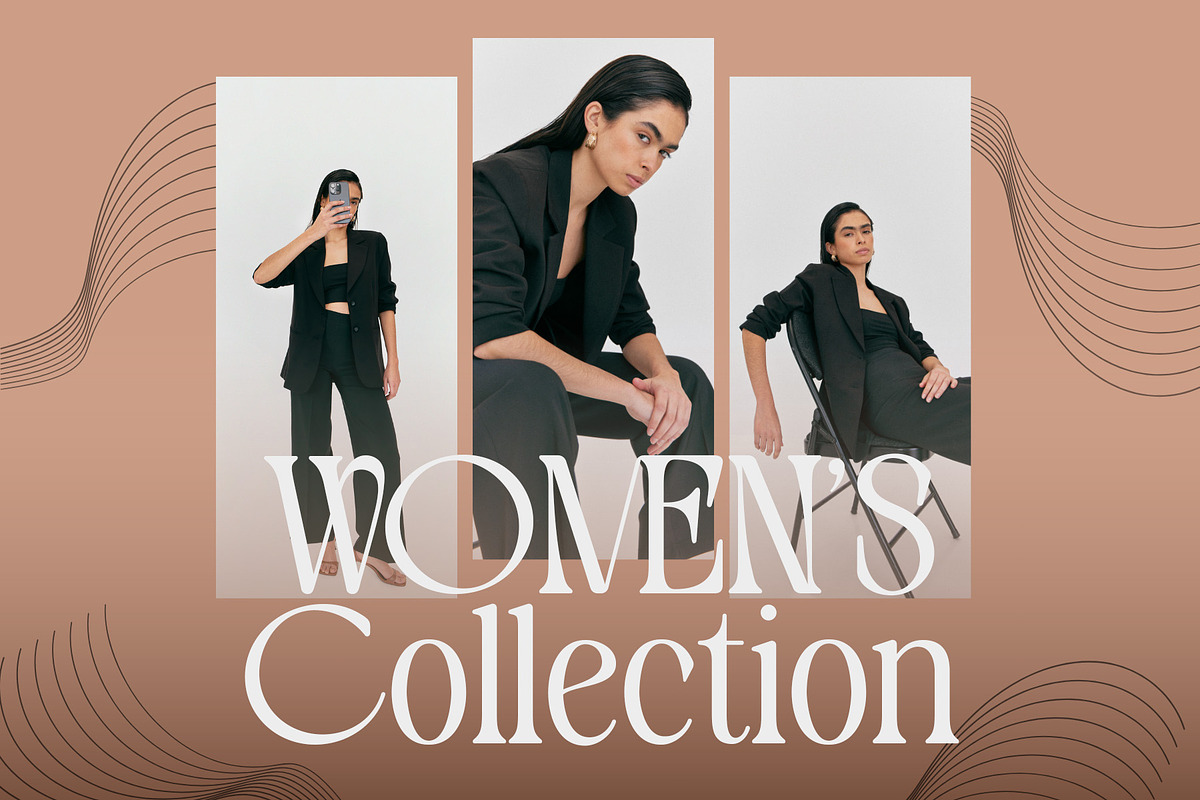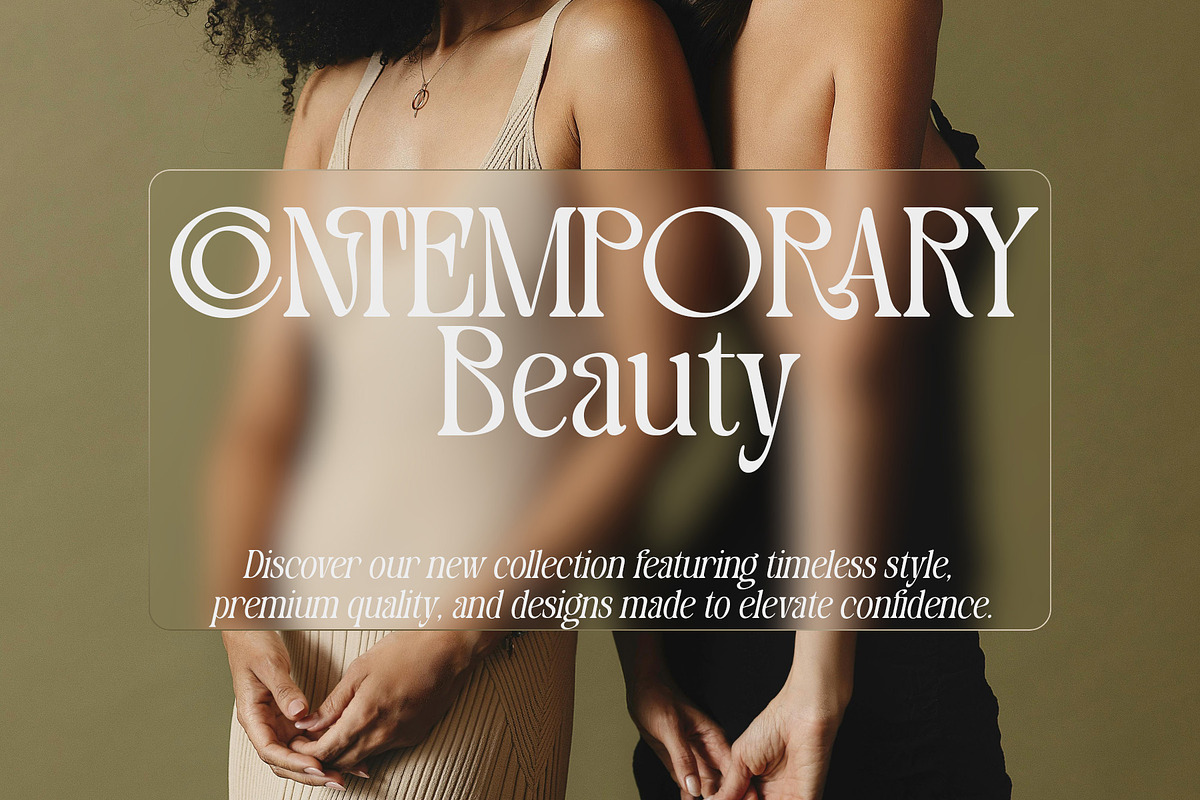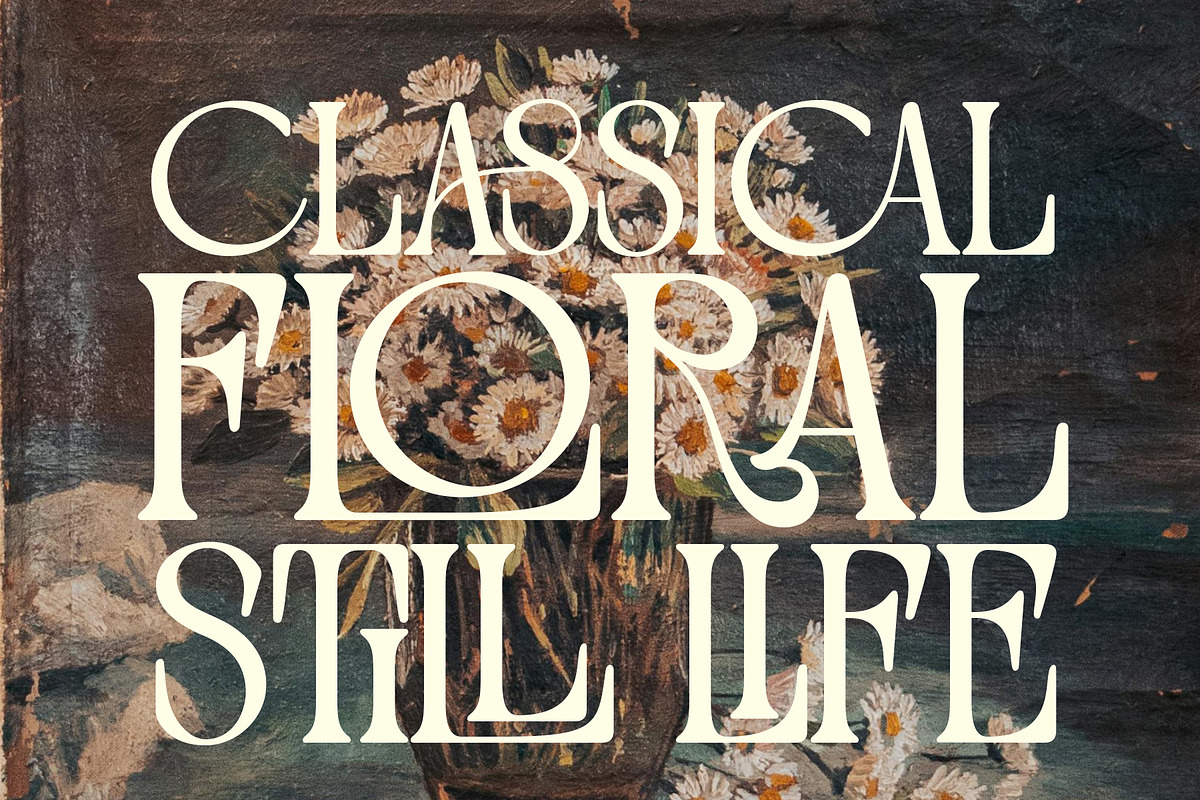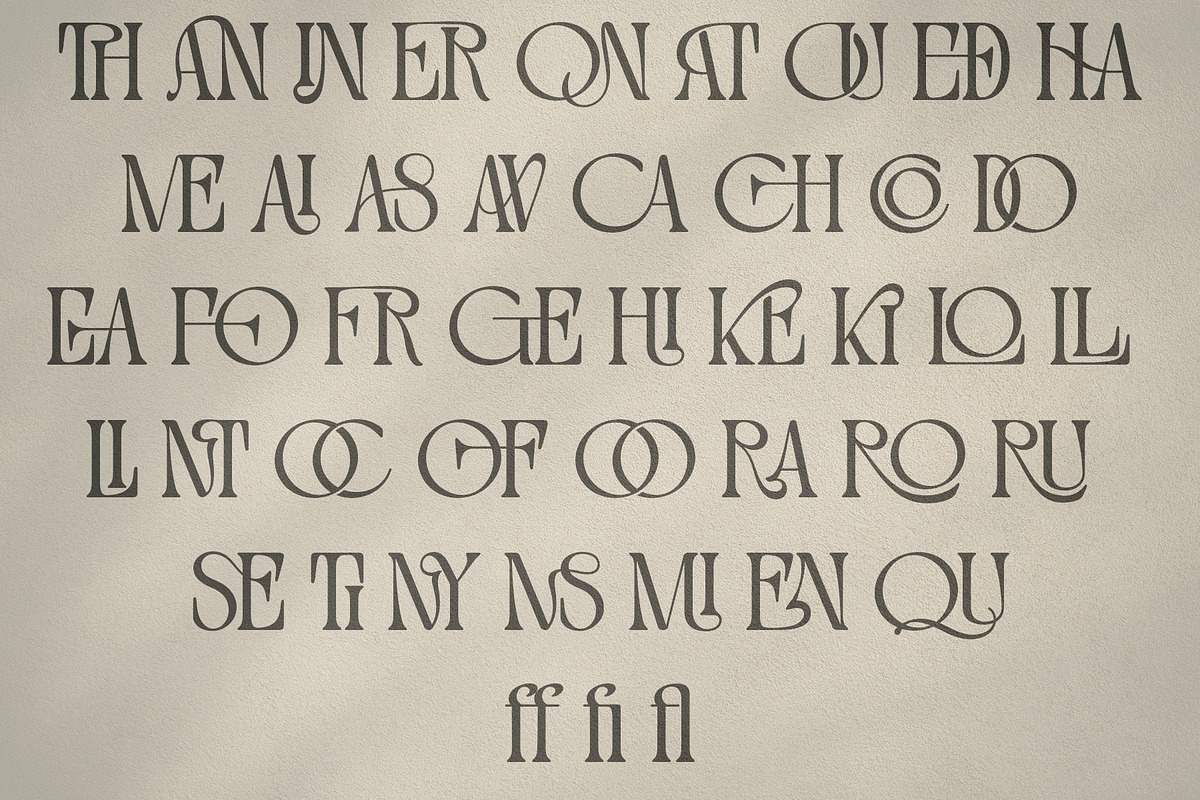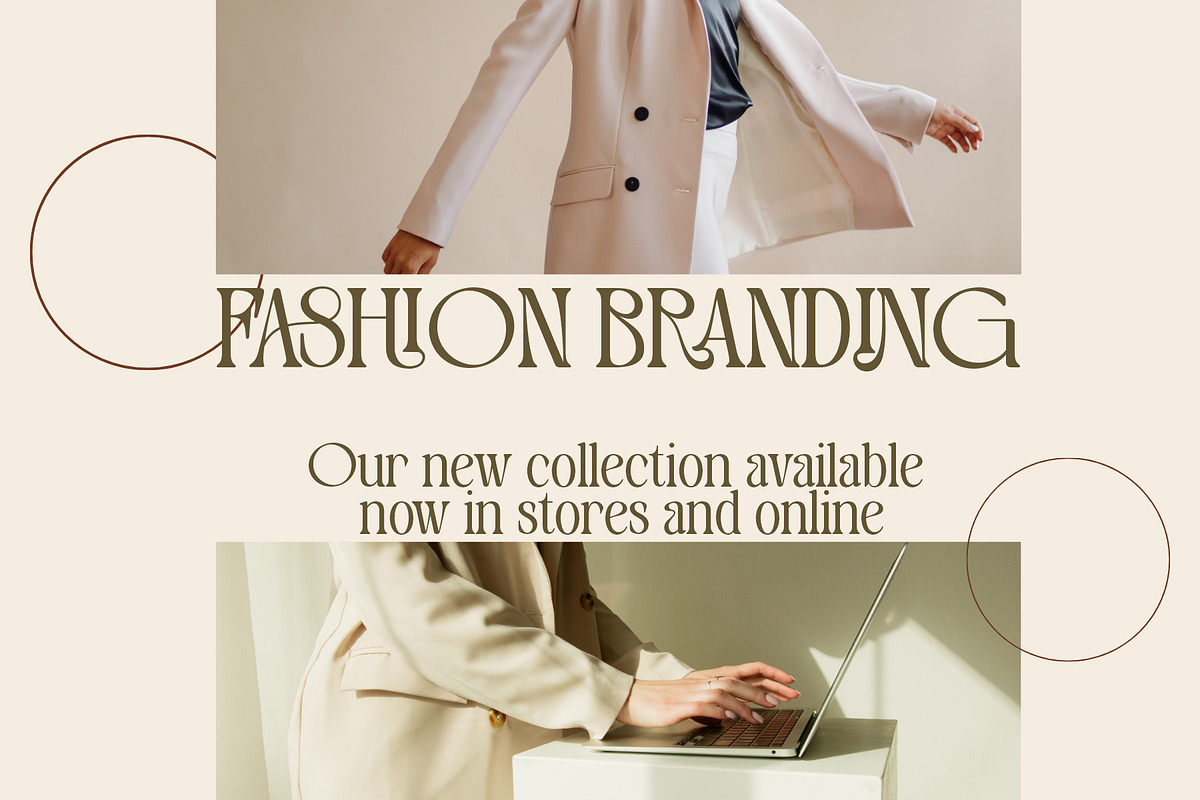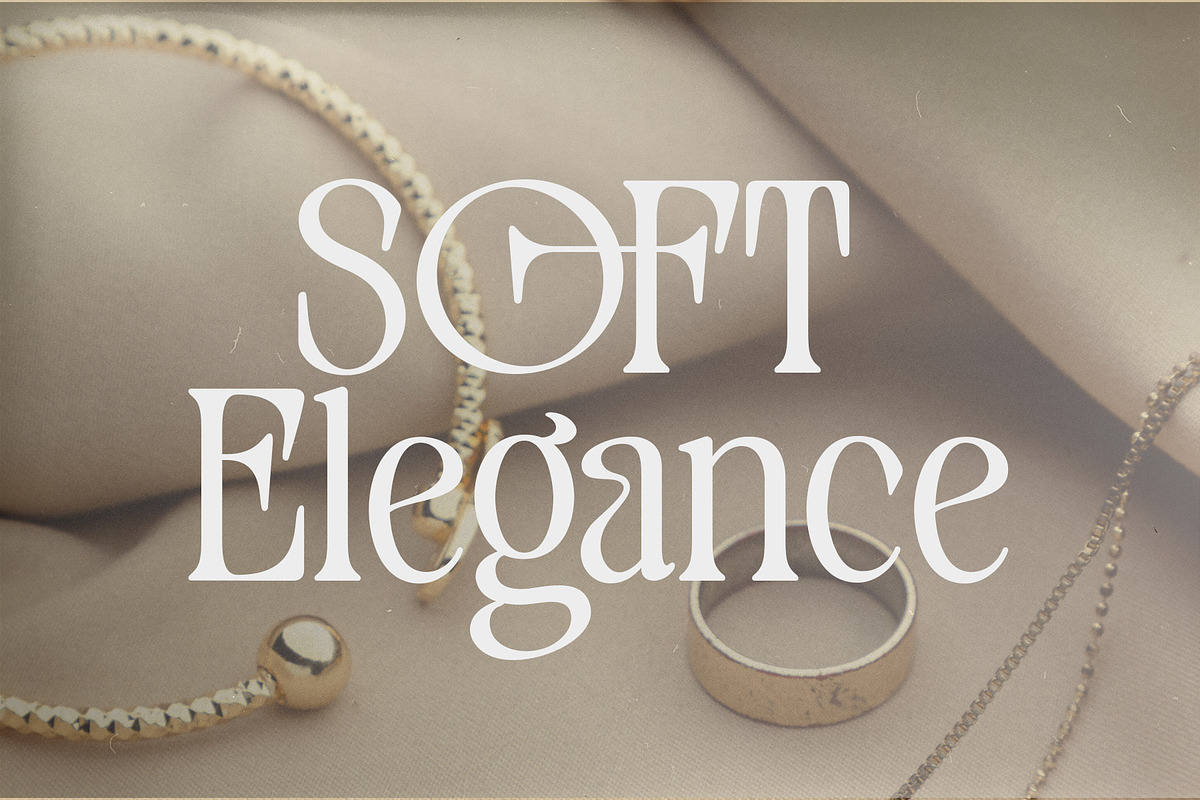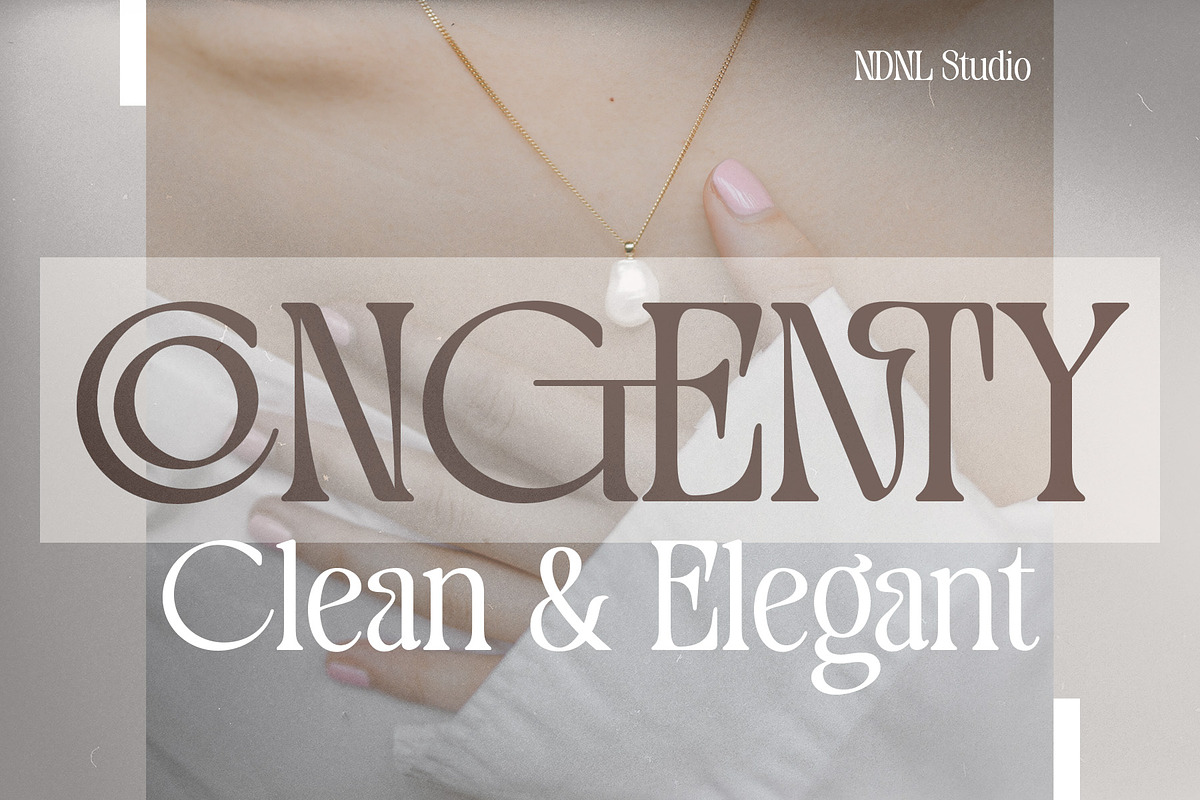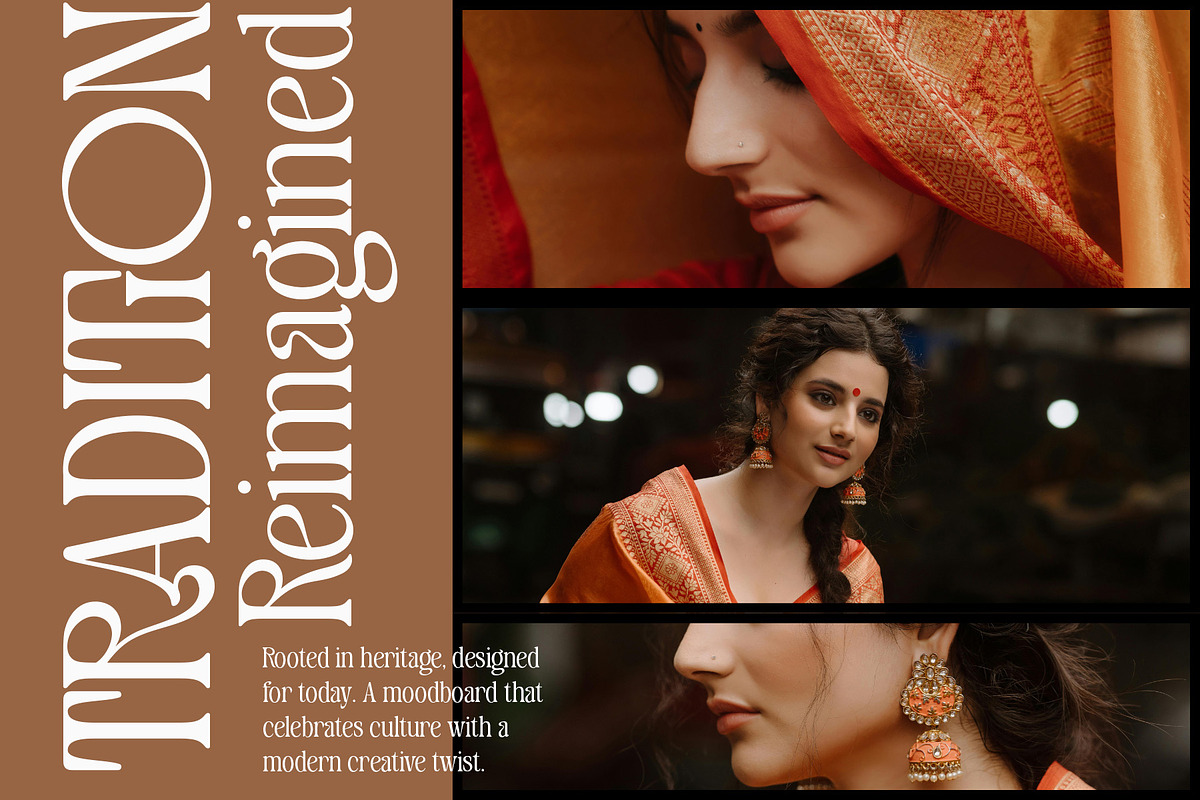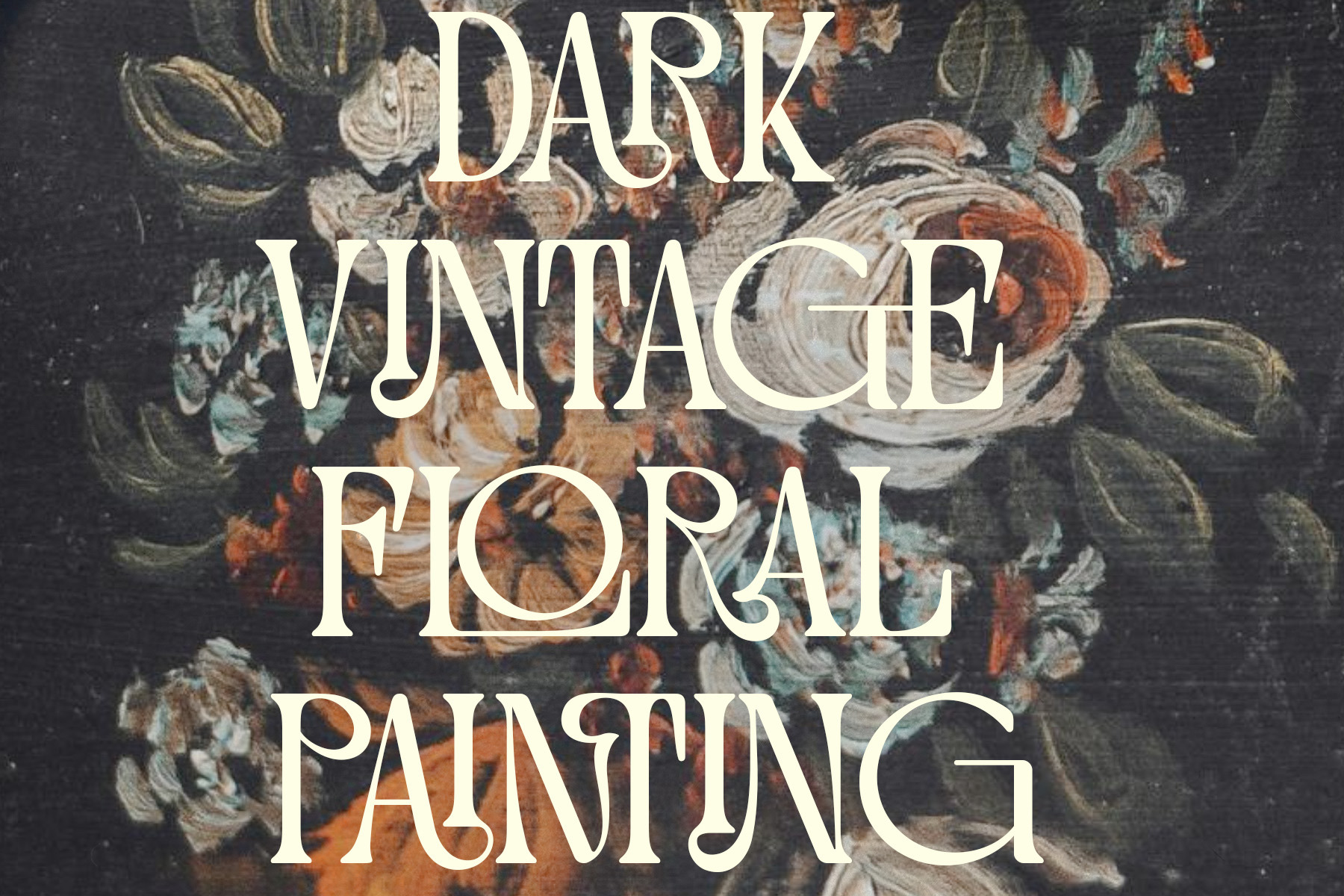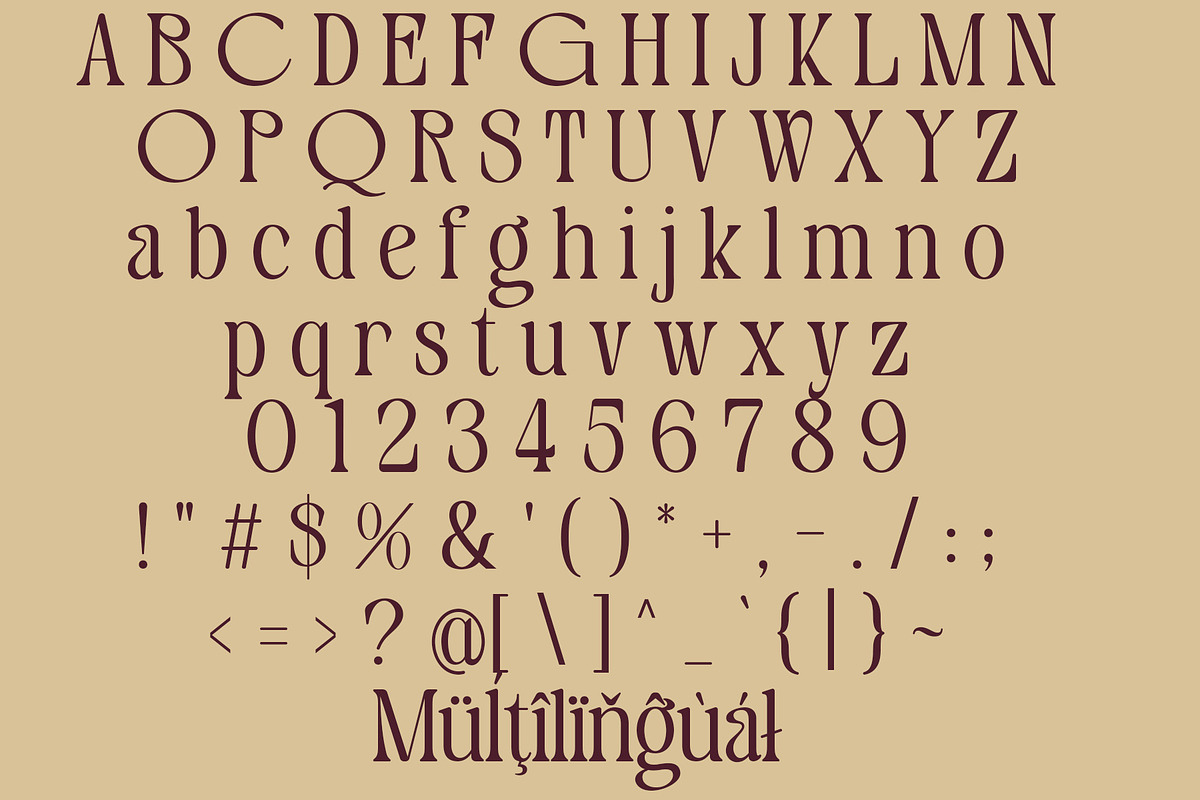
Congenty – Serif Font
Congenty is a refined modern serif font that blends timeless elegance with contemporary sophistication. Featuring graceful curves, clean lines, and beautifully balanced proportions, this typeface is designed to make a lasting impression across a wide range of creative projects.
Perfect for luxury branding, fashion editorials, logos, packaging, wedding stationery, magazines, and social media content, Congenty delivers a clean and polished aesthetic that elevates every design. Its distinctive letterforms add character while maintaining excellent readability, making it ideal for both headlines and stylish display text.
– Character set A-Z
– Uppercase & Lowercase
– Numerals & Punctuation
– Accented Characters (West Europe)